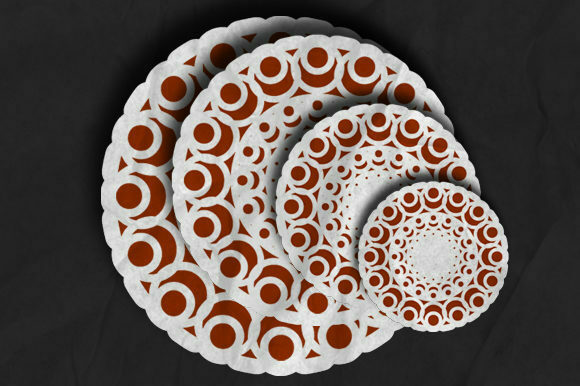
About Kaleidoscopic Mind Font
Kaleidoscopic Mind sounds like a fascinating dingbats font! With its amazing kaleidoscopic-themed characters, it offers a unique and mesmerizing visual experience. Here are some creative ideas on how to make the most of this font and incorporate it into your crafting projects: